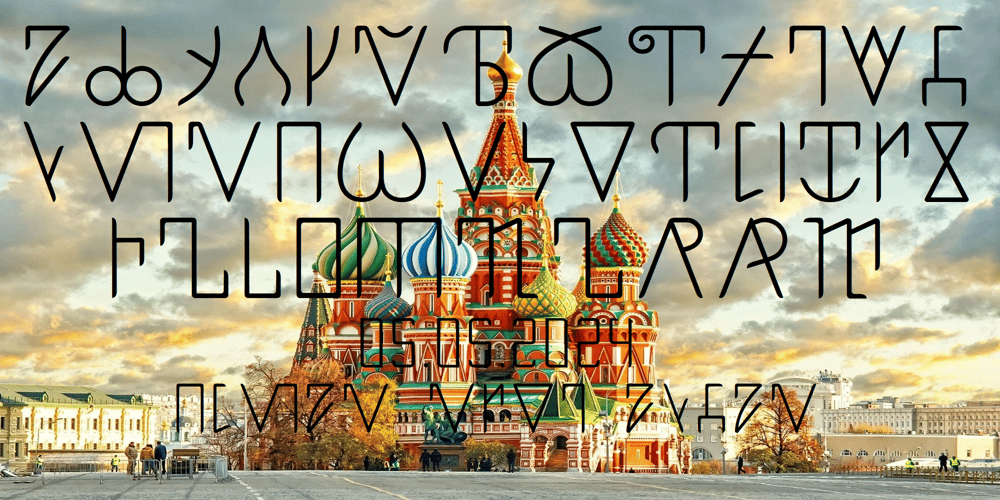
Ongunkan Old Permic Font Family was designed by Osman Nuri ALKAN and published by Runic World Tamgacı. Ongunkan Old Permic contains 1 styles and family package options. This font is both Latin-based and Unicode-based font. Old Permic Letters are mapped to Latin letters.The script was introduced by a Russian missionary, Stepan Khrap, also known as Saint Stephen of Perm (Степан Храп, св. Стефан Пермский), in 1372. The name Abur is derived from the names of the first two characters: An and Bur. The script derived from Cyrillic and Greek, with Komi “Tamga” signs, the latter being similar in the appearance to runes or siglas poveiras because they were created by incisions rather than by usual writing. The inclusion of the latter aided the script to greater acceptance among the medieval Permic speakers of the time.The script was in use until the 17th century, when it was superseded by the Cyrillic script. Abur was also used as cryptographic writing for the Russian language.April 26, which is the feast day of Stephen of Perm, is celebrated as Old Permic Alphabet Day.